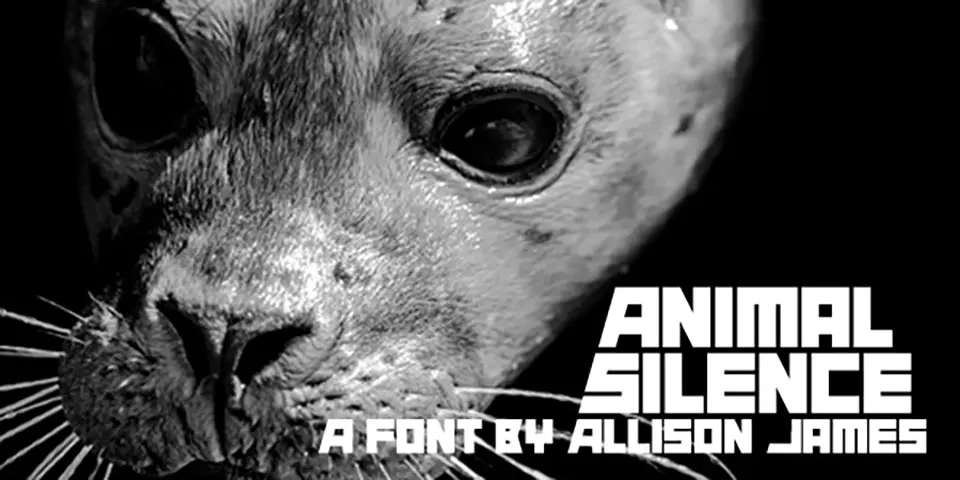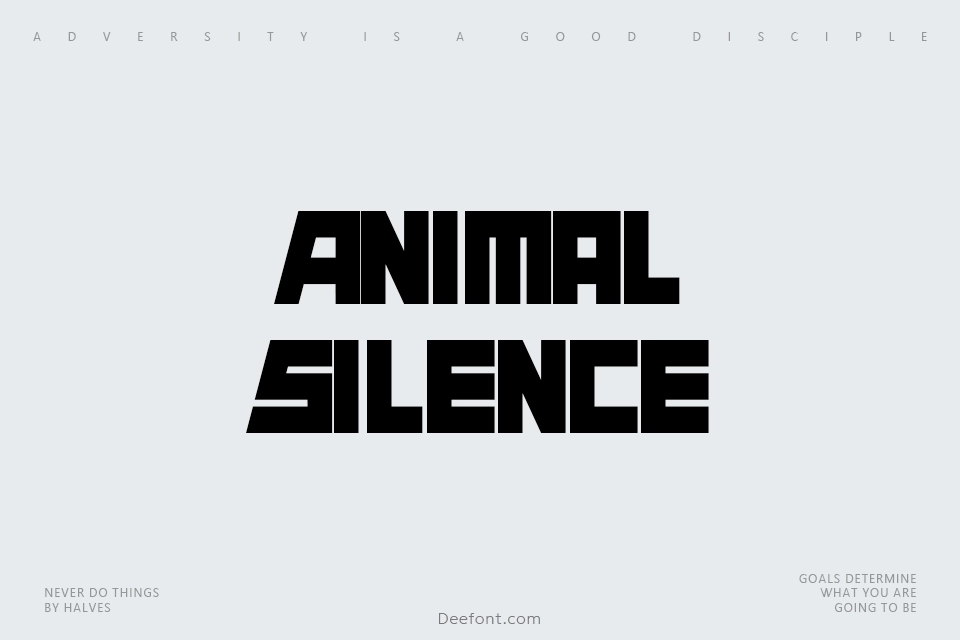
Animal Silence Font
Animal Silence is a bold and geometric display font with a futuristic and industrial aesthetic. Featuring sharp angles and straight lines, this typeface commands attention with its striking uppercase letters and robust lowercase characters. The font's blocky and modern appearance makes it ideal for headlines, logos, video game graphics, and any project requiring a strong visual statement. Perfect for branding, posters, and impactful designs that demand modern assertiveness.